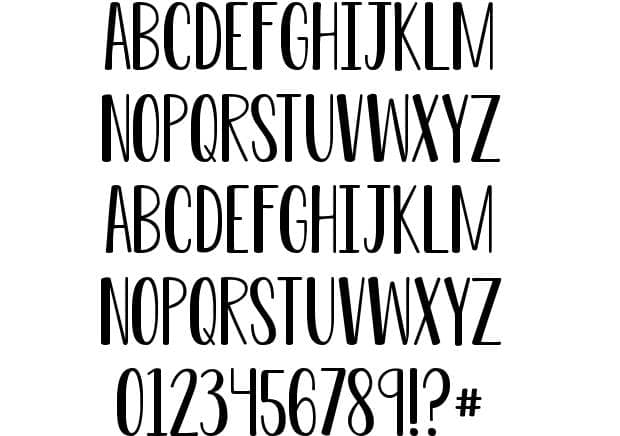
KG Do You Love Me Font
Kimberly Geswein invented and published KG Do You Love Me, a high-quality Various and Script font. It was released on January 17, 2019, and is free to download and use for personal purposes.
KG Do You Love Me Font is a wonderful Script font suitable for crafts, marketing, speeches, calligraphy, event designs, social media posts, promotions, product packaging, product designs, labels, portraiture, branding, and community activities on and so forth.
| Style | Script |
| Designer | Kimberly Geswein |